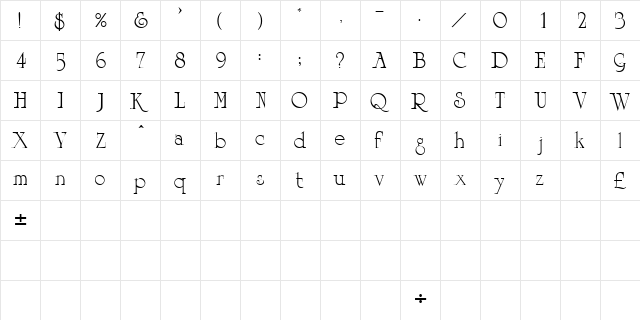
PiquetSSK Regular Font Preview
PiquetSSK Regular
PiquetSSK Regular Font Details
Design Context for PiquetSSK Typeface
PiquetSSK is a composed and adaptable typeface that performs quietly and consistently across a wide range of design contexts.